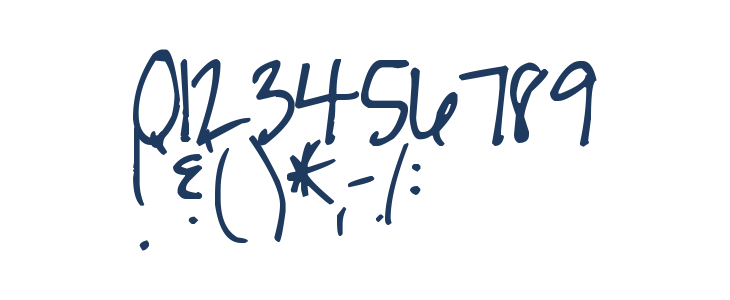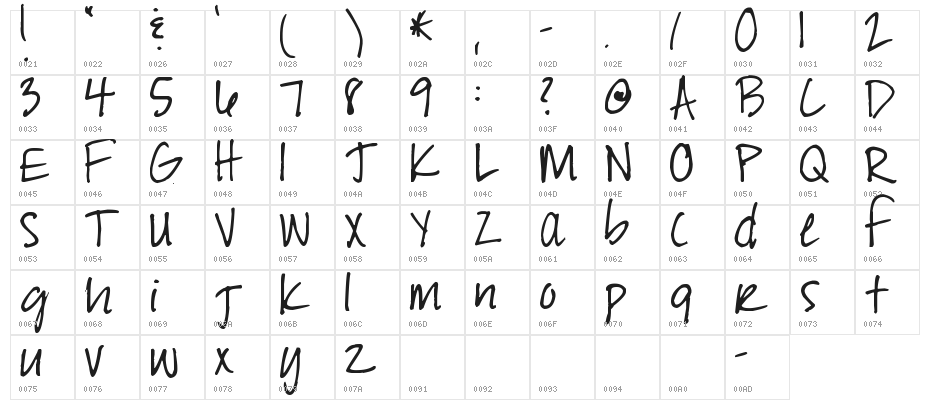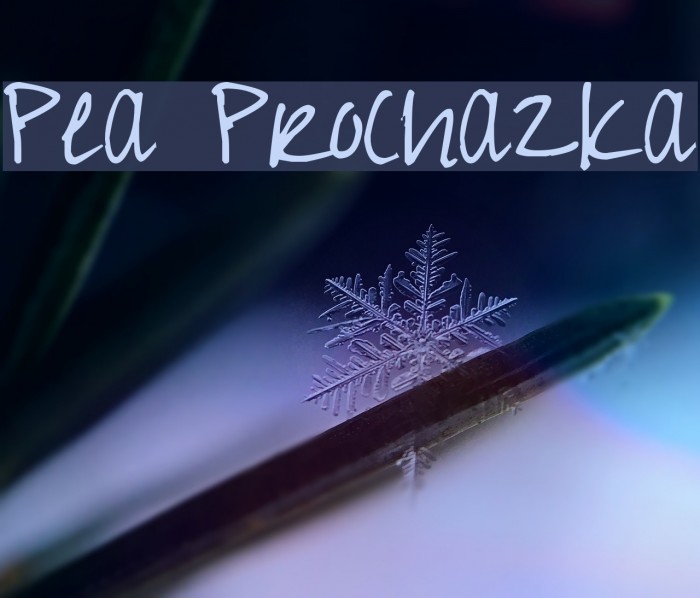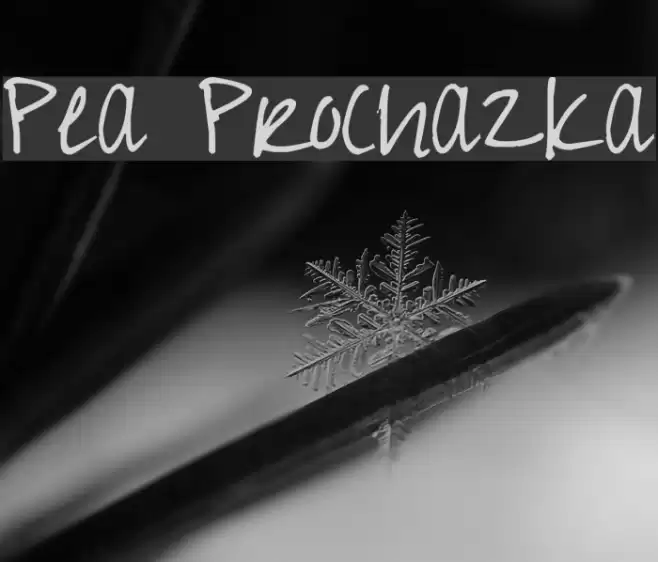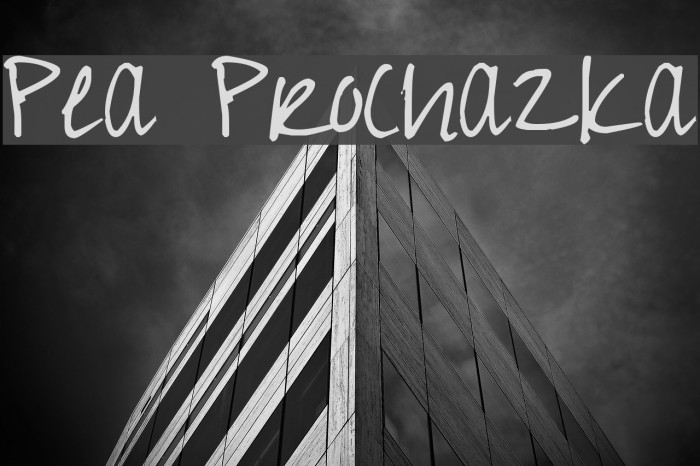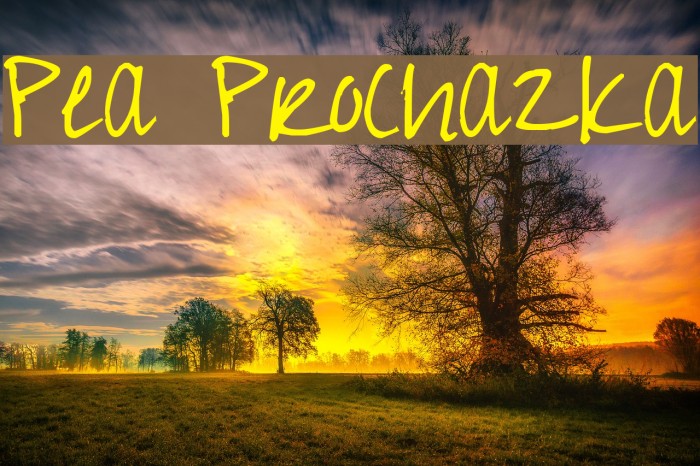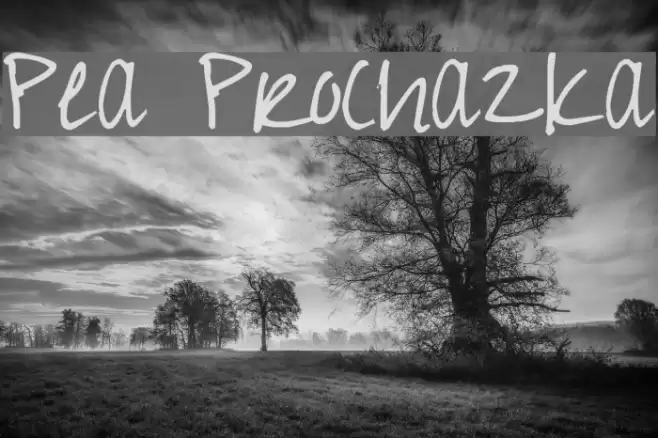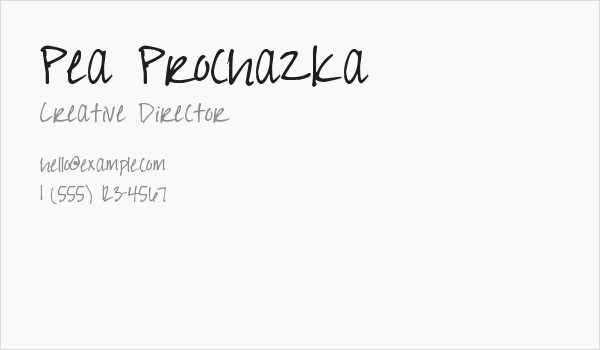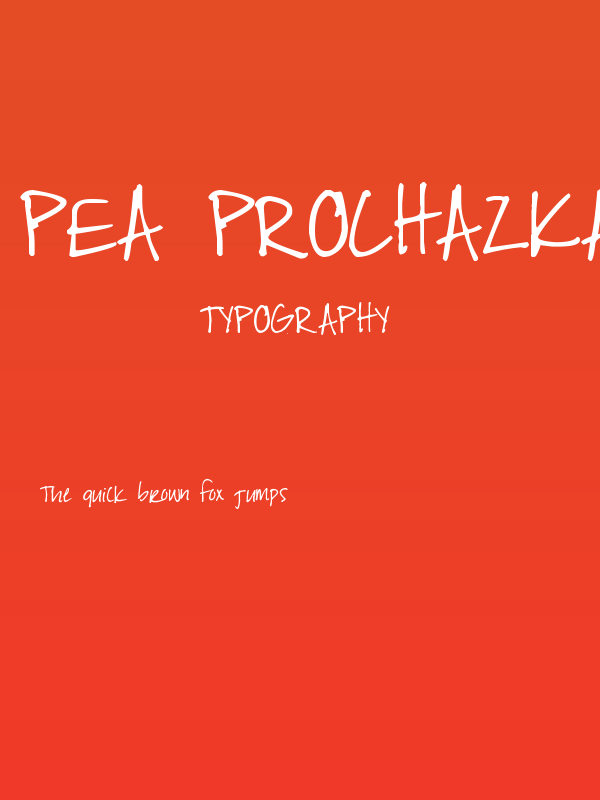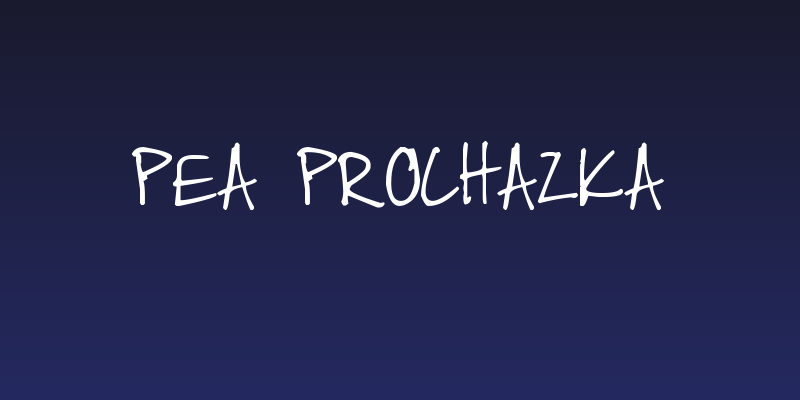
Pea Prochazka Font
Pea Prochazka Description
This font features a casual, handwritten style with a playful and informal appearance. The letters are slightly irregular, mimicking the natural flow of handwriting. The strokes are smooth and fluid, with a consistent thickness throughout, giving it a cohesive look. The uppercase and lowercase letters are well-balanced, maintaining readability while adding a personal touch. Numbers and special characters follow the same handwritten aesthetic, making the font versatile for various uses. The overall style is approachable and friendly, suitable for projects that require a personal or informal tone.
| Use Case | Greeting cards, Personal notes, Informal invitations |
| Proposed Projects | Ideal for greeting cards, personal notes, informal invitations, and playful branding projects. |